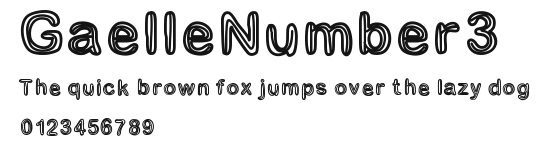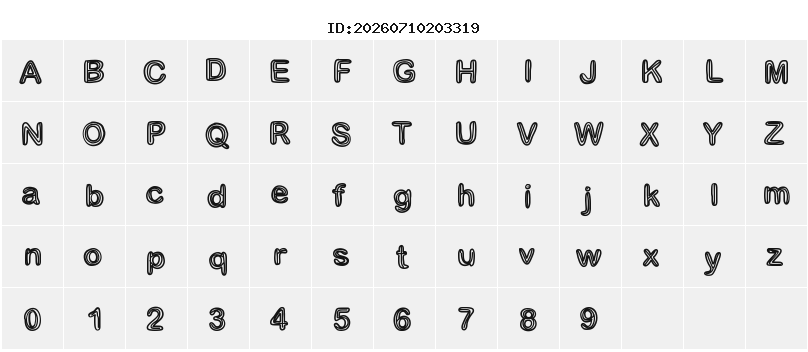
GaelleNumber3 Preview
• Font Name: GaelleNumber3
• Full Font Name: GaelleNumber3
• PostScript Name: GaelleNumber3
About GaelleNumber3.ttf
GaelleNumber3.ttf is a modern, elegant sans-serif font designed for ultimate readability and visual harmony. Perfect for branding, headlines, web design, and print materials.